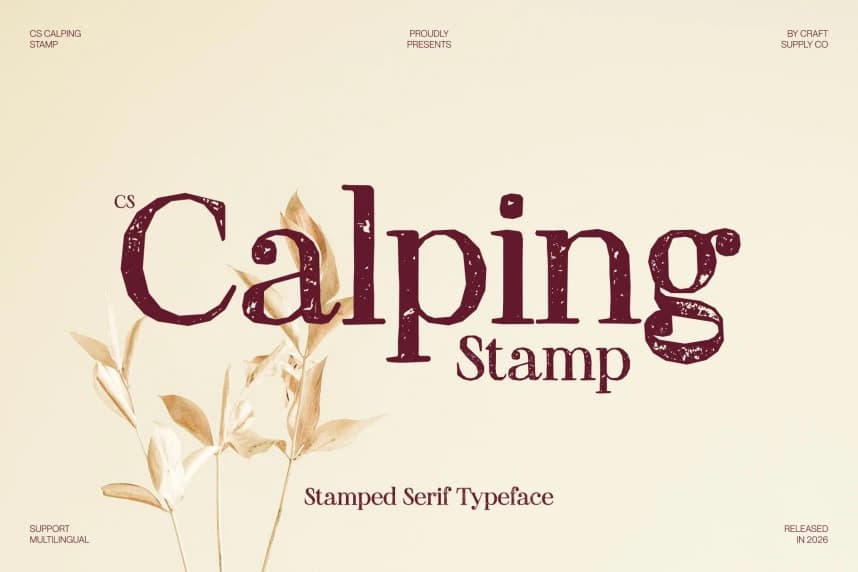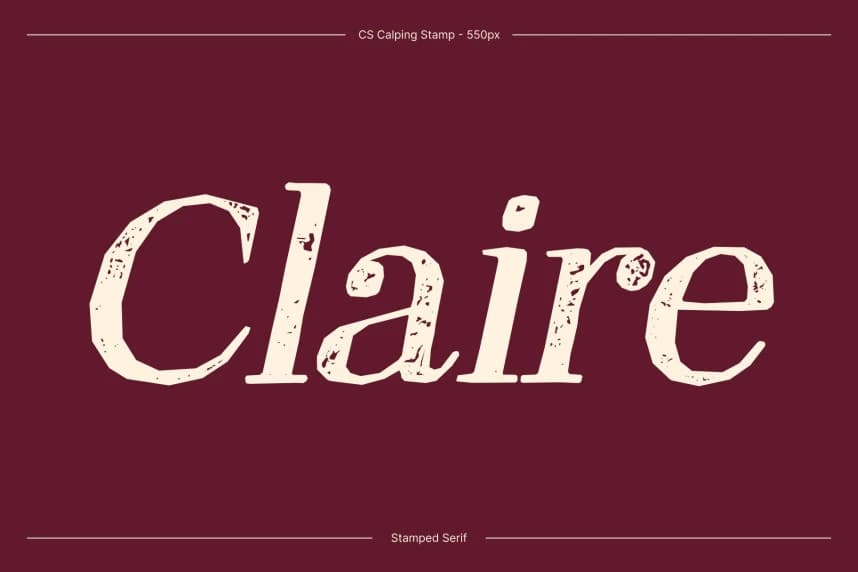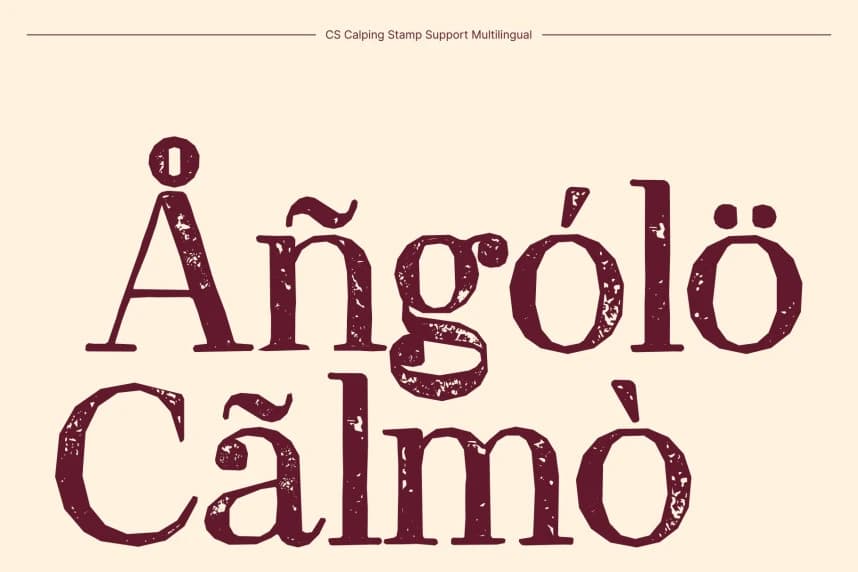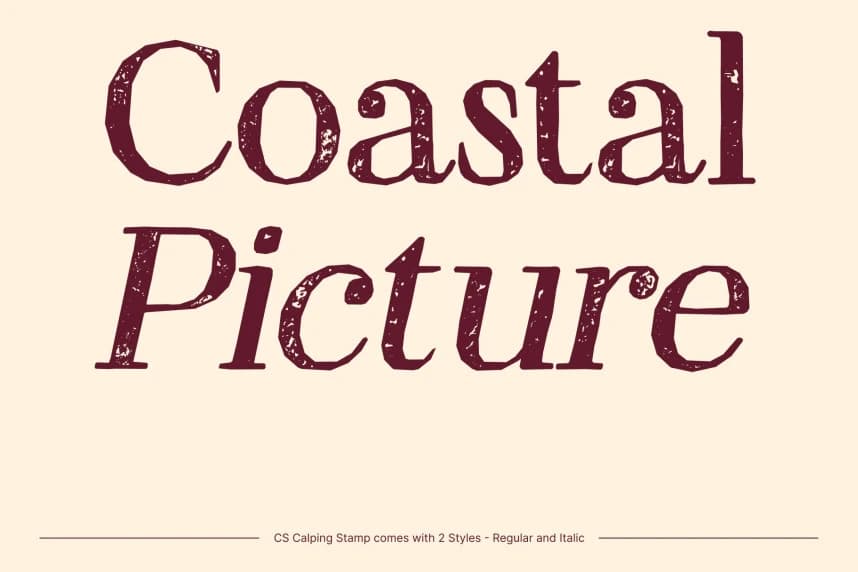
CS Calping Stamp Font
CS Calping Stamp Font – Classic Didone Serif with Vintage Texture Timeless Elegance with Artistic Stamp Character. This is a Didone serif font that combines classic elegance with a distinctive vintage stamp effect.